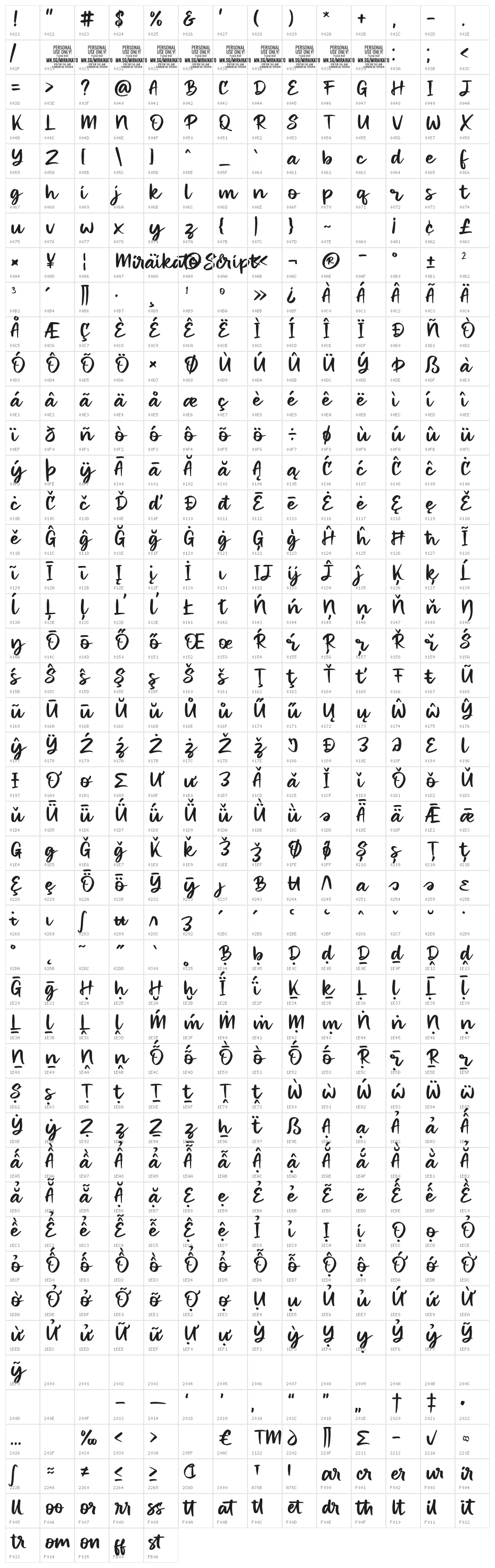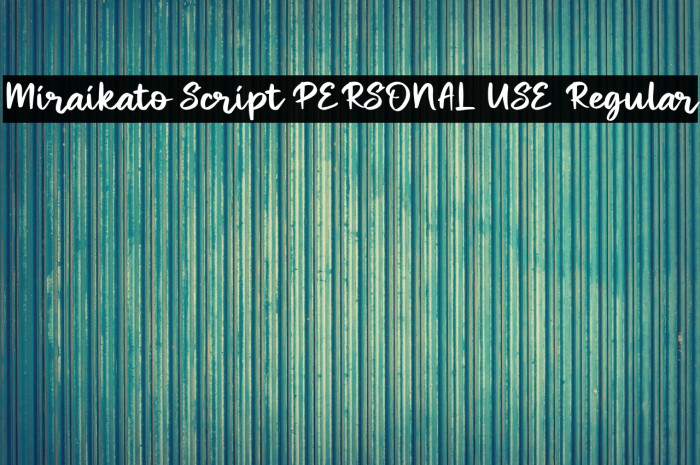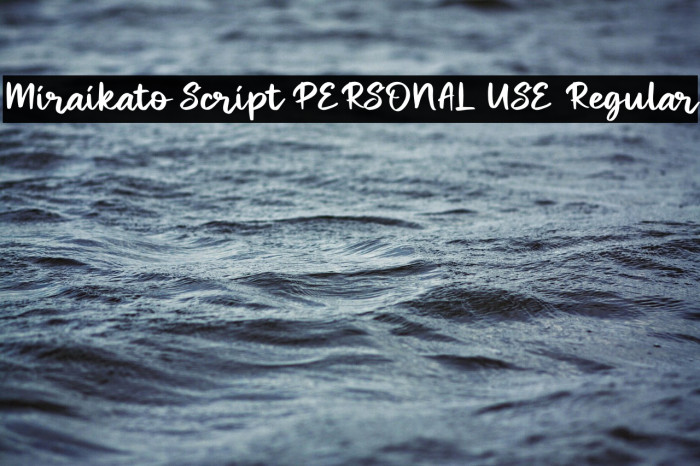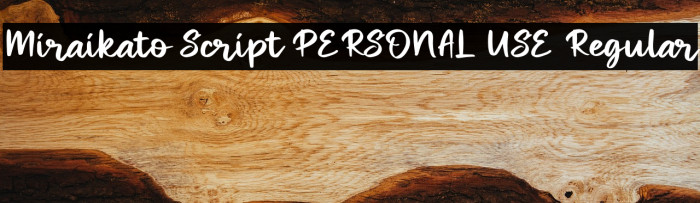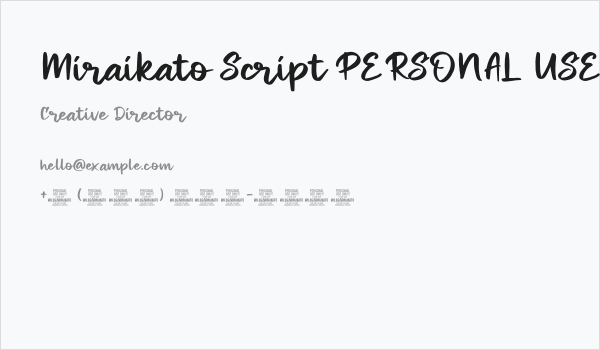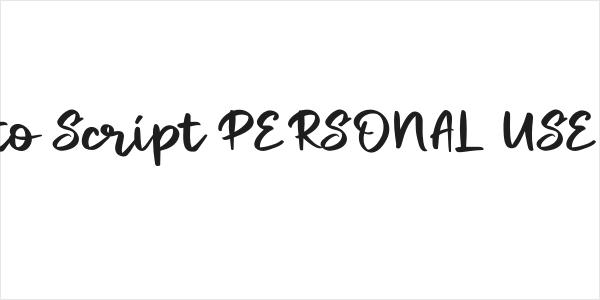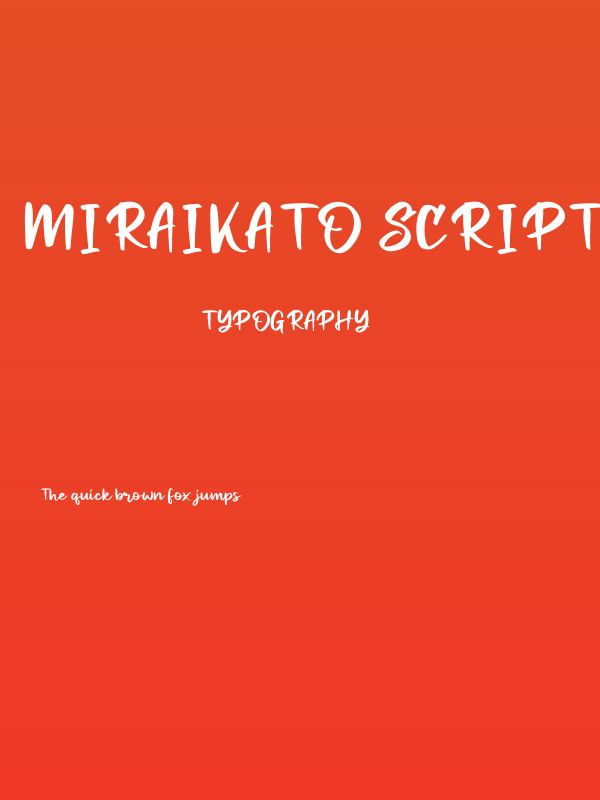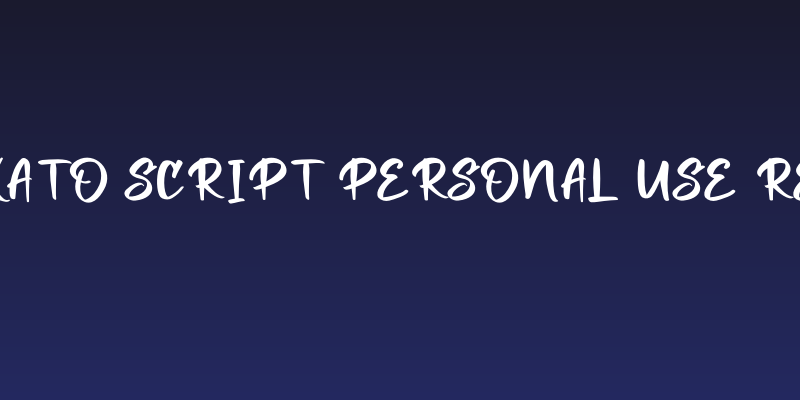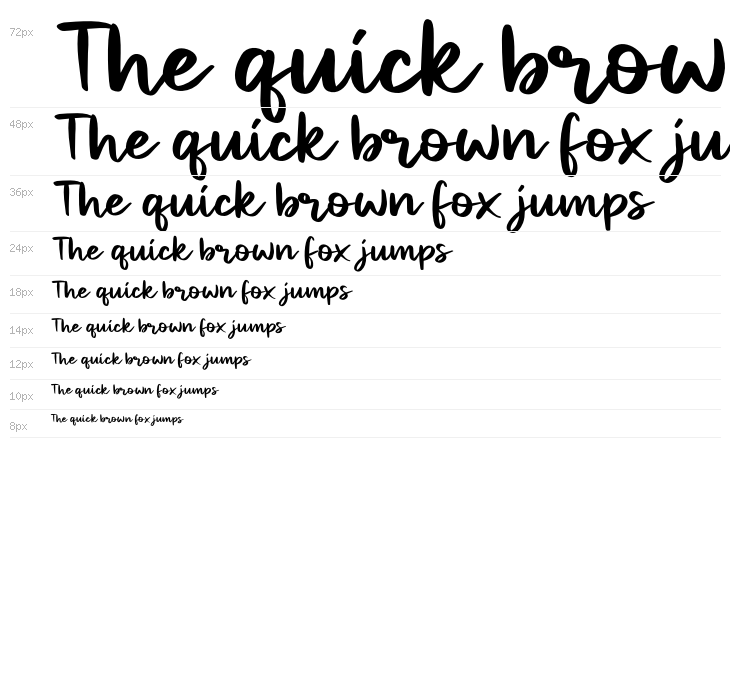
Miraikato Script PERSONAL USE Regular Font
Miraikato Script PERSONAL USE Regular Description
This script font exudes a lively and energetic style, characterized by its bold and flowing strokes. The letters are connected in a fluid manner, creating a sense of movement and rhythm. The uppercase letters are slightly more structured, while the lowercase letters exhibit a more casual and freeform appearance. The overall design is playful yet elegant, making it suitable for creative and artistic projects. The font maintains a consistent weight throughout, providing a harmonious and balanced look. Its handwritten quality adds a personal touch, making it ideal for invitations, greeting cards, and branding that requires a humanistic and approachable feel.
| Proposed Projects | Ideal for invitations, greeting cards, branding, and creative projects that require a personal touch. |